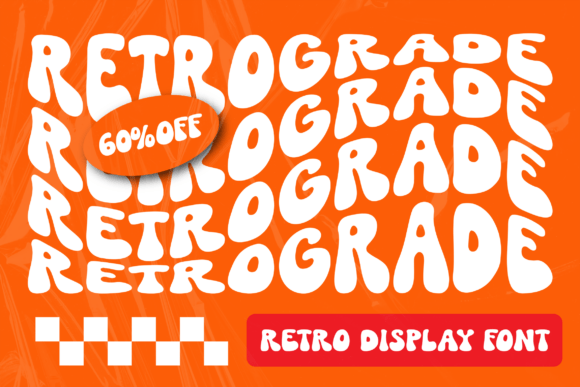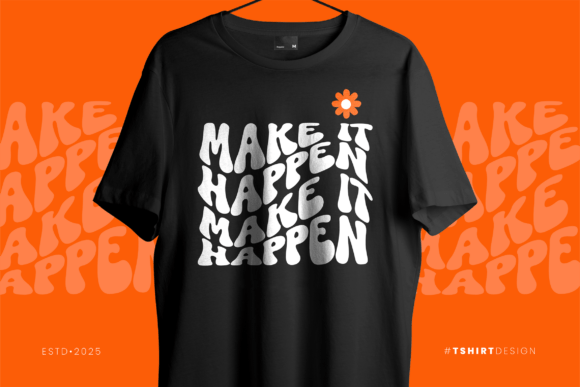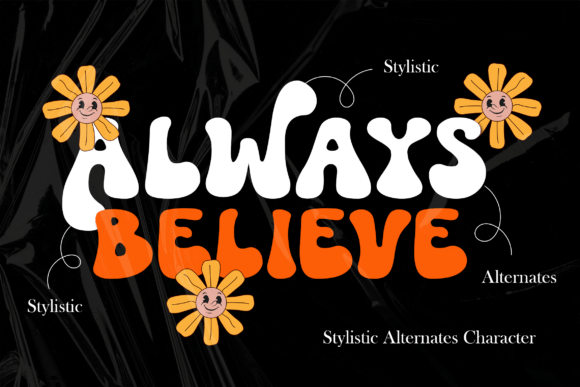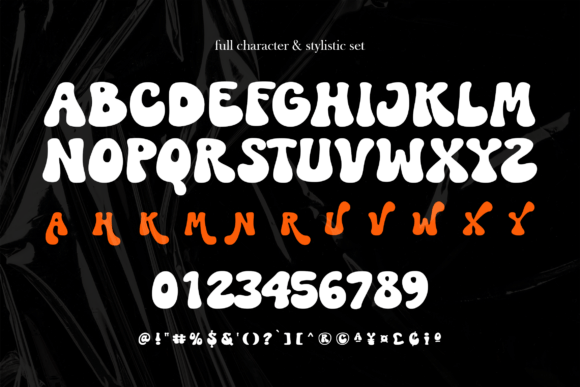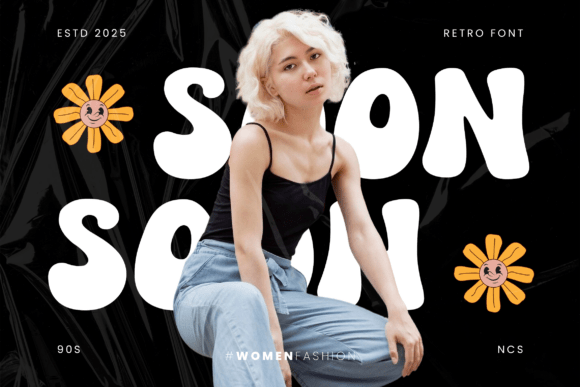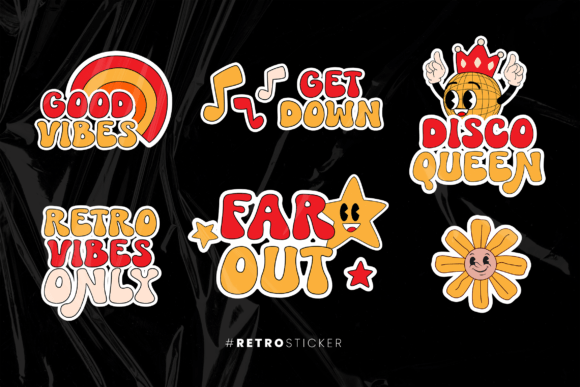
Introducing Another Nothing Font: The Ultimate Retro Revival
Are you ready to add a dash of bold, bubbly personality to your designs? Look no further than Another Nothing, a fun and modern font that’s about to take the world of graphic design by storm! Inspired by the psychedelic styles of the 1970s, this display font is the perfect blend of retro vibes and contemporary flair.
The Retro Revival
The 1970s was an era of vibrant colors, bold patterns, and eclectic styles. It was a time of creative experimentation, and the design world was no exception. The psychedelic movement, with its roots in the counterculture of the 1960s, continued to influence design in the 1970s, giving birth to a distinctive style characterized by swirling shapes, bright colors, and playful typography.
Another Nothing Font is a nod to this iconic era, with its chunky letterforms, playful curves, and dripping details that evoke the spirit of 1970s psychedelia. This font is not just a tribute to the past; it’s a bold statement that brings retro vibes into the modern design landscape.
What Makes Another Nothing Font So Special?
So, what sets Another Nothing apart from other fonts? Here are just a few features that make it a standout:
- Chunky Letterforms: Another Nothing’s bold, chunky letterforms are perfect for making a statement. Whether you’re designing a poster, album cover, or merchandise, this font demands attention.
- Playful Curves: The playful curves and rounded edges of Another Nothing give it a friendly, approachable feel that’s perfect for designs that need a bit of personality.
- Dripping Details: The dripping details and subtle texture of Another Nothing add a touch of whimsy and fun to your designs.
- Stylistic Alternates: To help you mix things up and add extra flair to your designs, Another Nothing comes with a cool set of stylistic alternates (shown in orange). These alternates offer a range of creative possibilities, from subtle variations to bold new takes on the original font.
Use Cases for Another Nothing Font
Another Nothing Font is incredibly versatile, making it perfect for a wide range of design projects. Here are just a few ideas to get you started:
- Posters: Whether you’re promoting a concert, festival, or product launch, Another Nothing is the perfect font for creating eye-catching posters that demand attention.
- Album Covers: Add a touch of retro psychedelia to your album covers with Another Nothing. This font is perfect for music genres like rock, pop, and electronic.
- Branding: Another Nothing is ideal for funky branding projects that need a bold, creative edge. Use it for logos, packaging, and marketing materials.
- Merchandise: From t-shirts to tote bags, Another Nothing is perfect for designing merchandise that makes a statement.
Tips for Getting the Most Out of Another Nothing Font
To get the most out of Another Nothing, here are a few tips to keep in mind:
- Experiment with Color: Another Nothing looks amazing in bold, bright colors. Don’t be afraid to experiment with different color combinations to find the perfect look for your design.
- Play with Texture: The subtle texture of Another Nothing adds depth and interest to your designs. Try combining it with other textures and patterns for a unique look.
- Mix and Match: Use the stylistic alternates to create visual interest and add variety to your designs. You can also combine Another Nothing with other fonts for a bold, contrasting look.
Another Nothing Font is a bold, bubbly font that’s perfect for designers and crafters looking to add a touch of retro personality to their work. With its chunky letterforms, playful curves, and dripping details, this font is sure to make a statement. Whether you’re designing posters, album covers, or merchandise, Another Nothing is the perfect choice for projects that need a splash of creative energy.